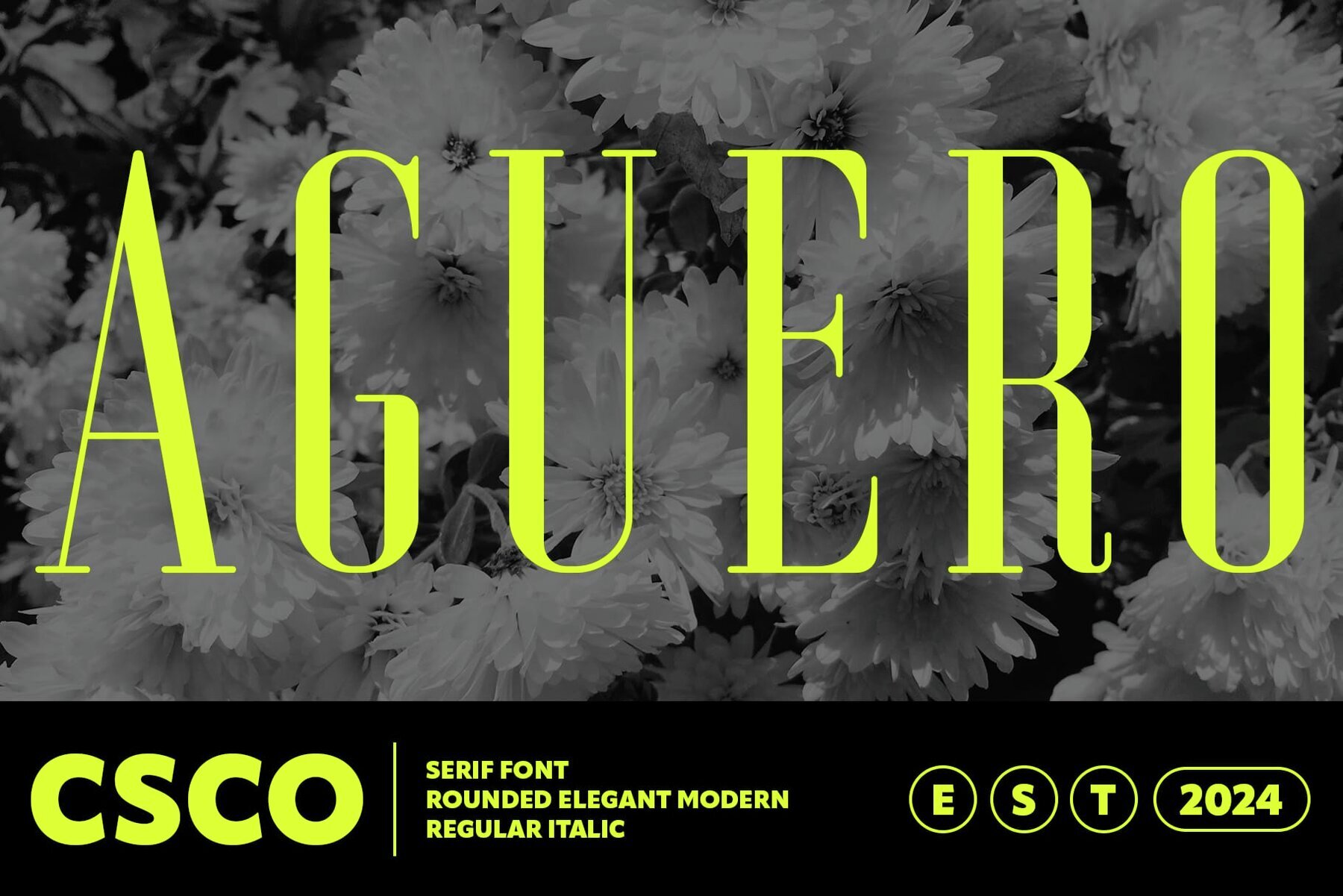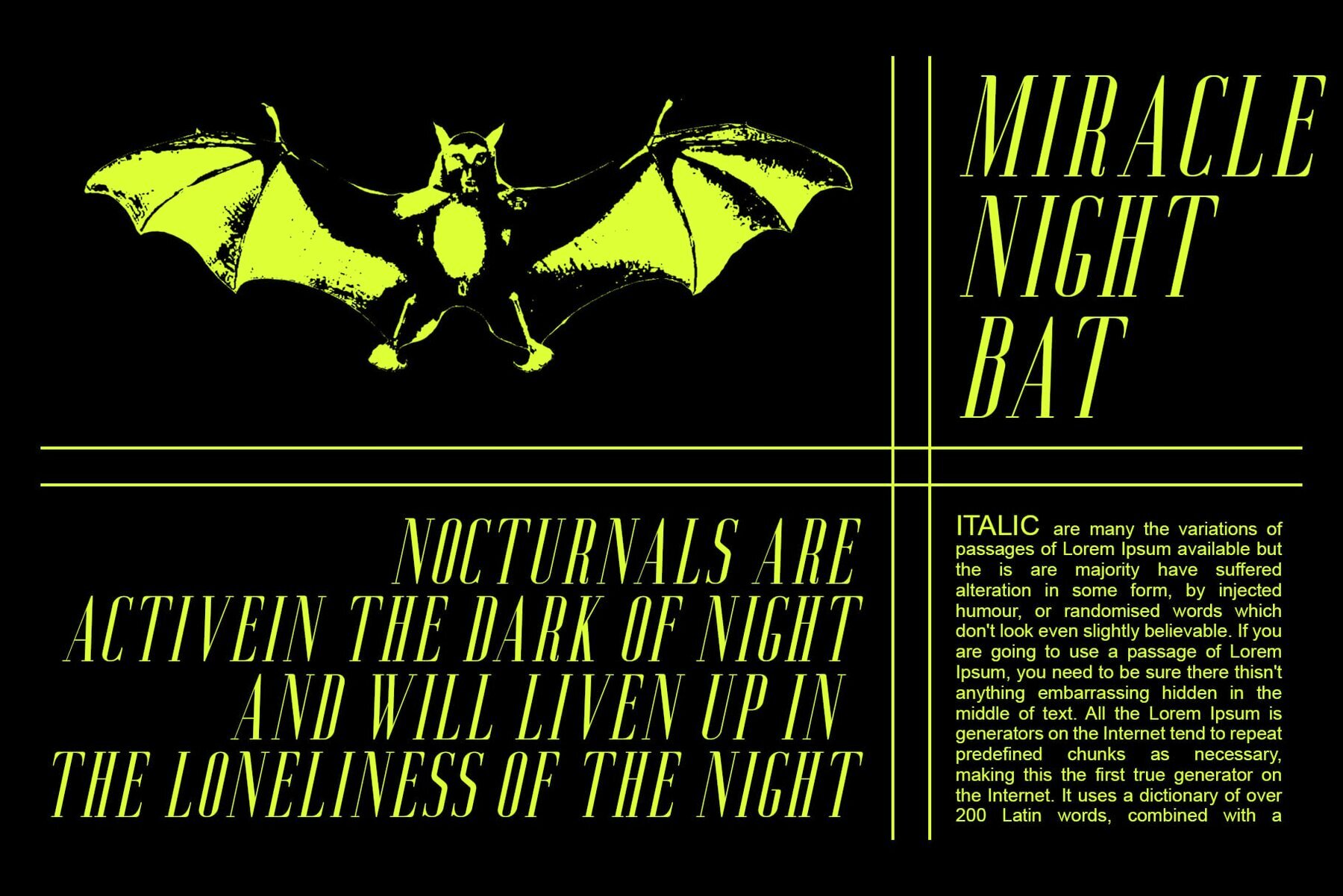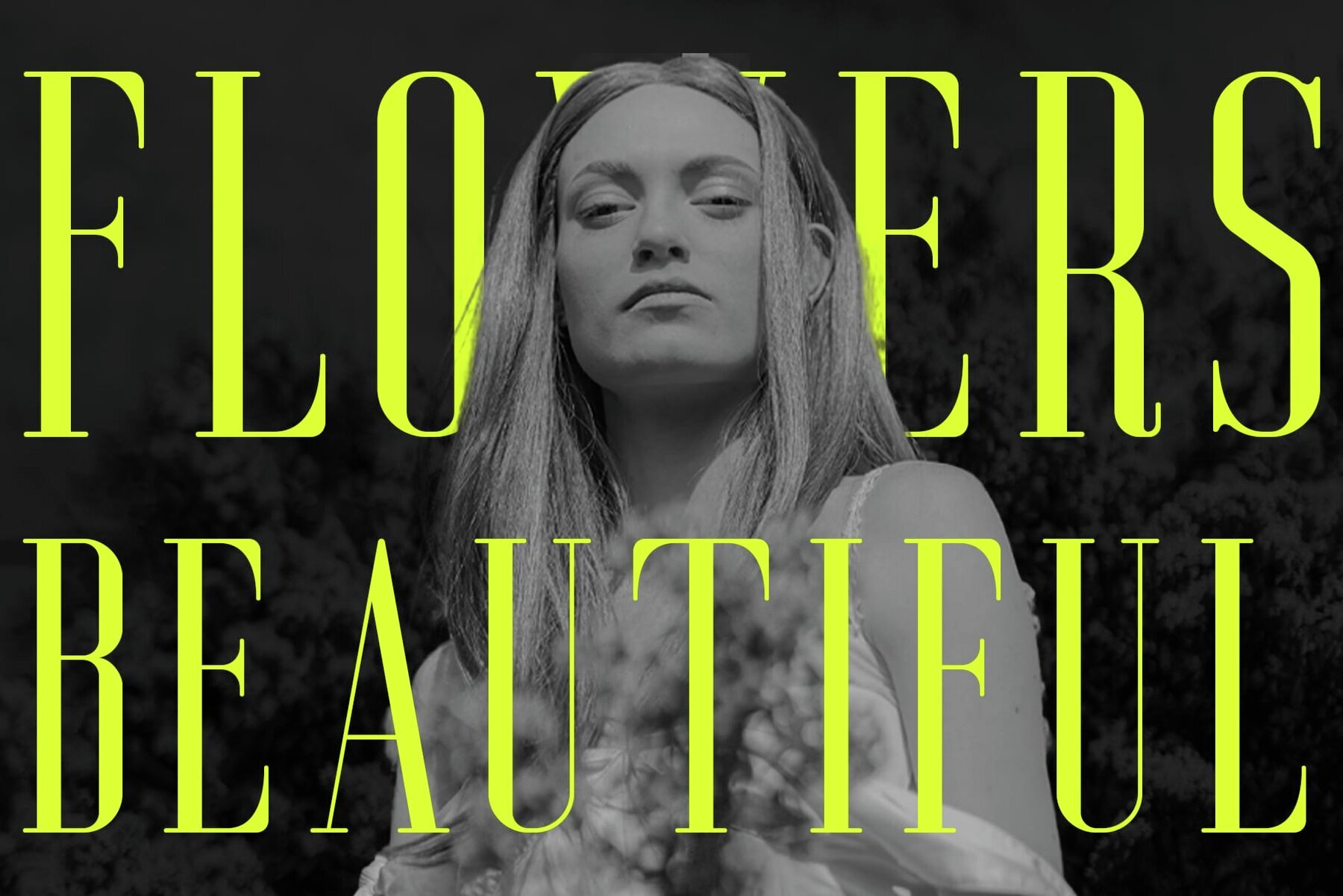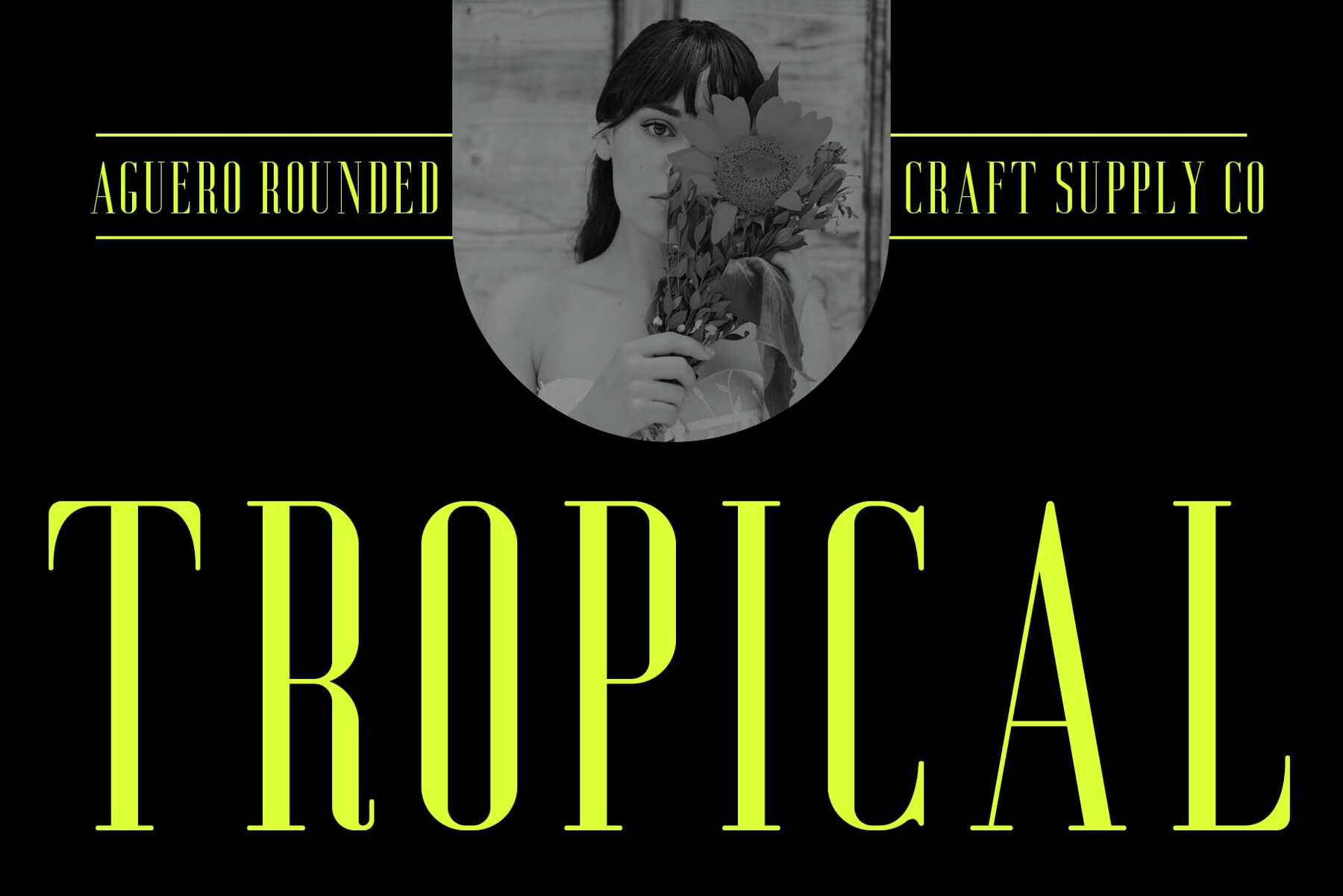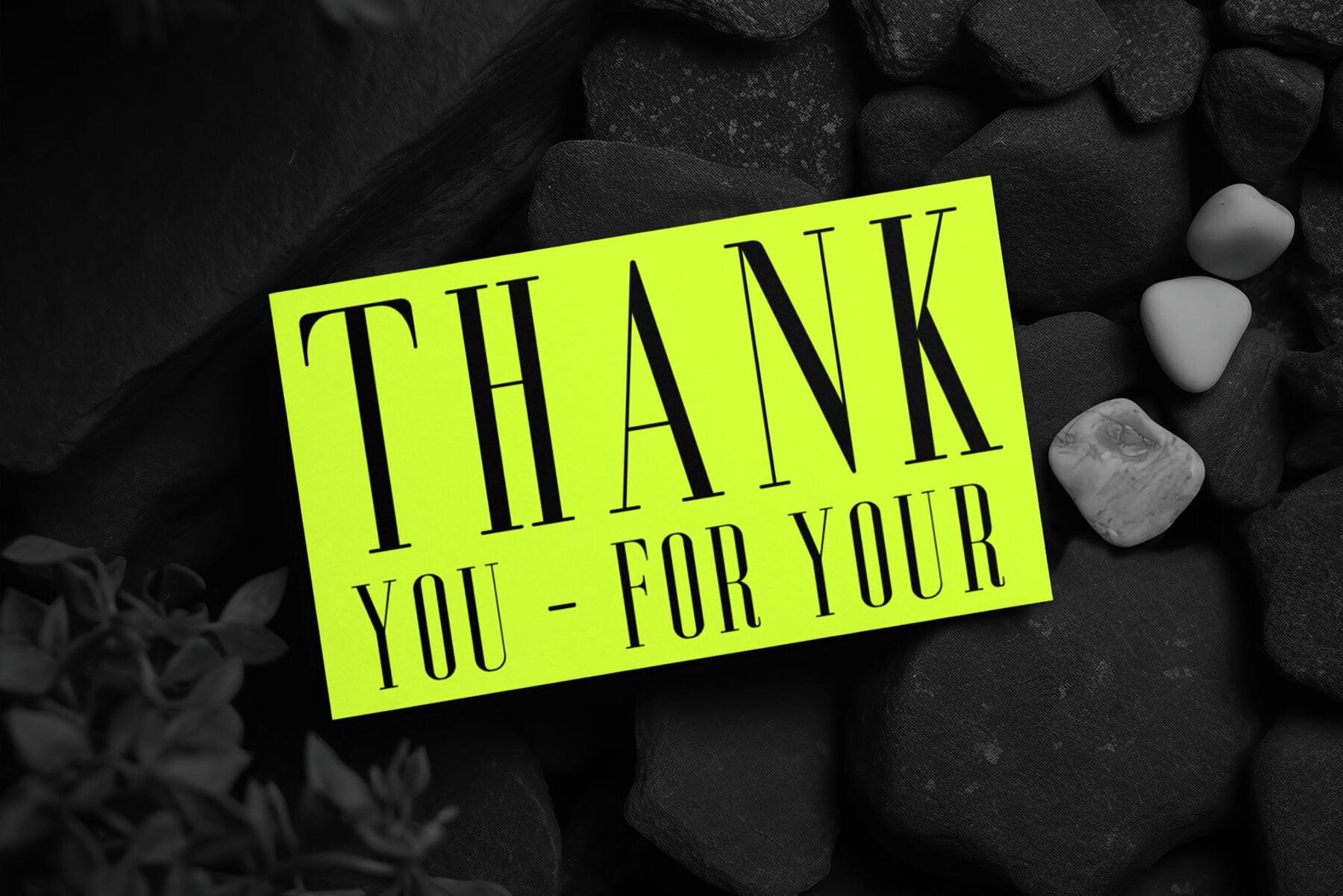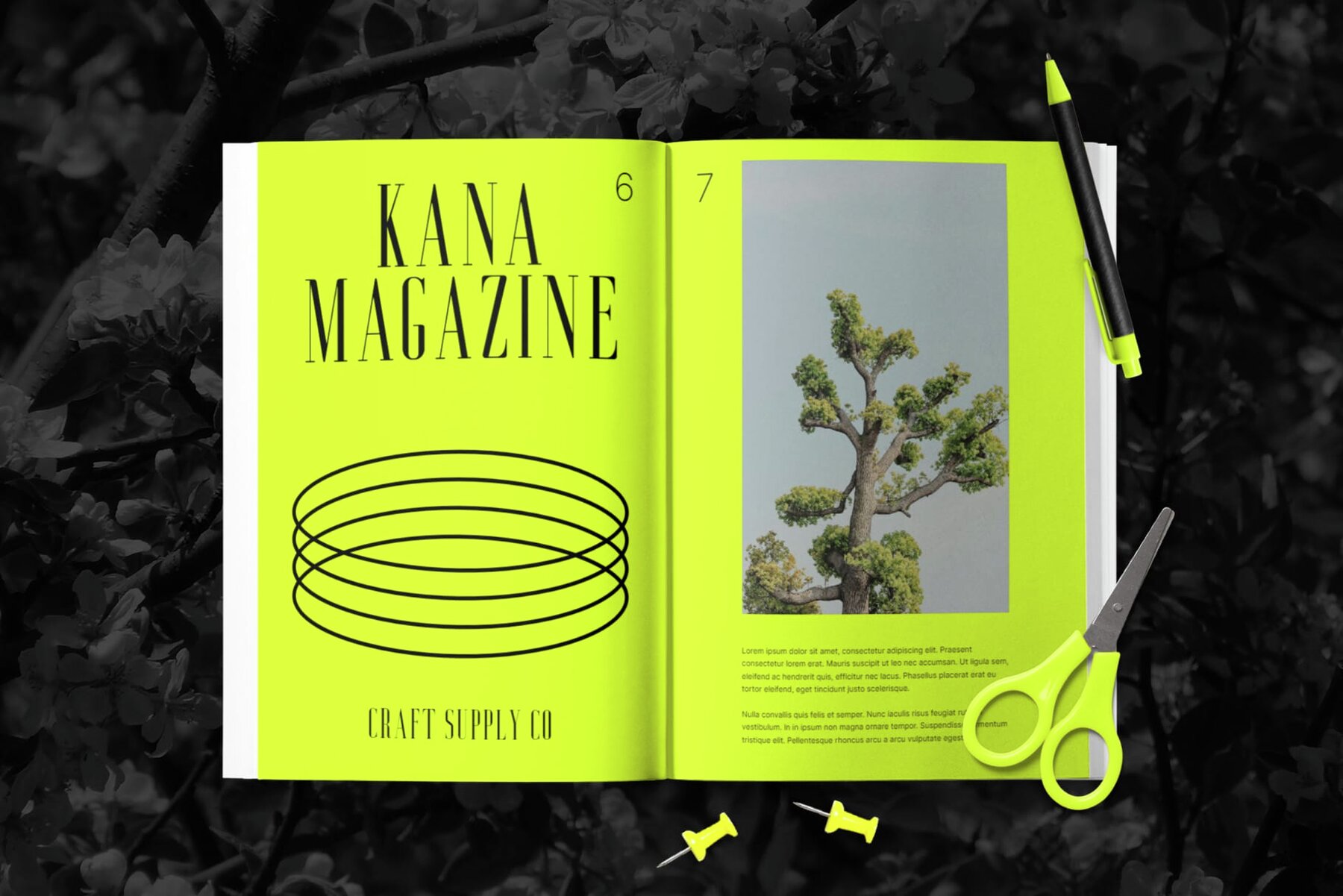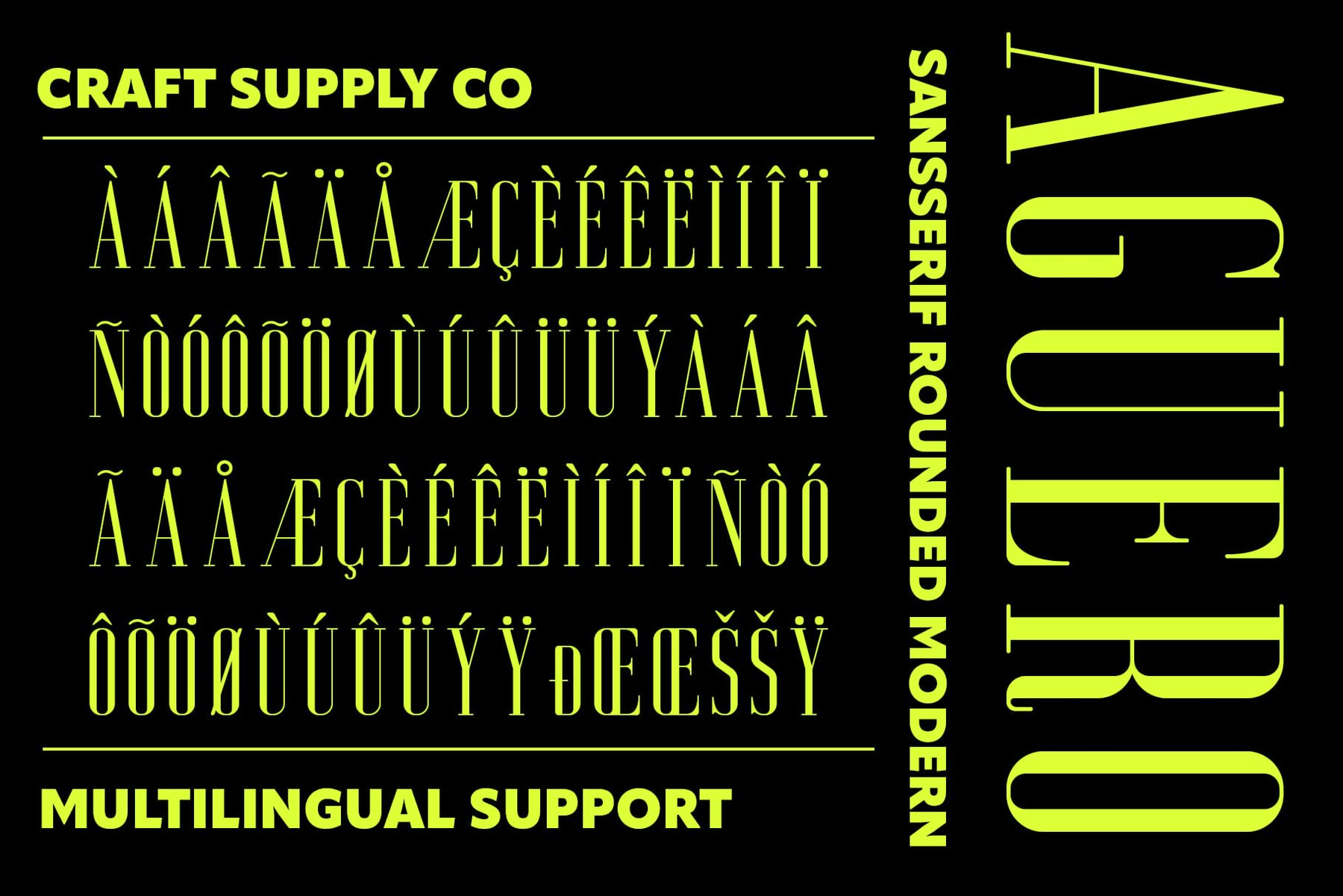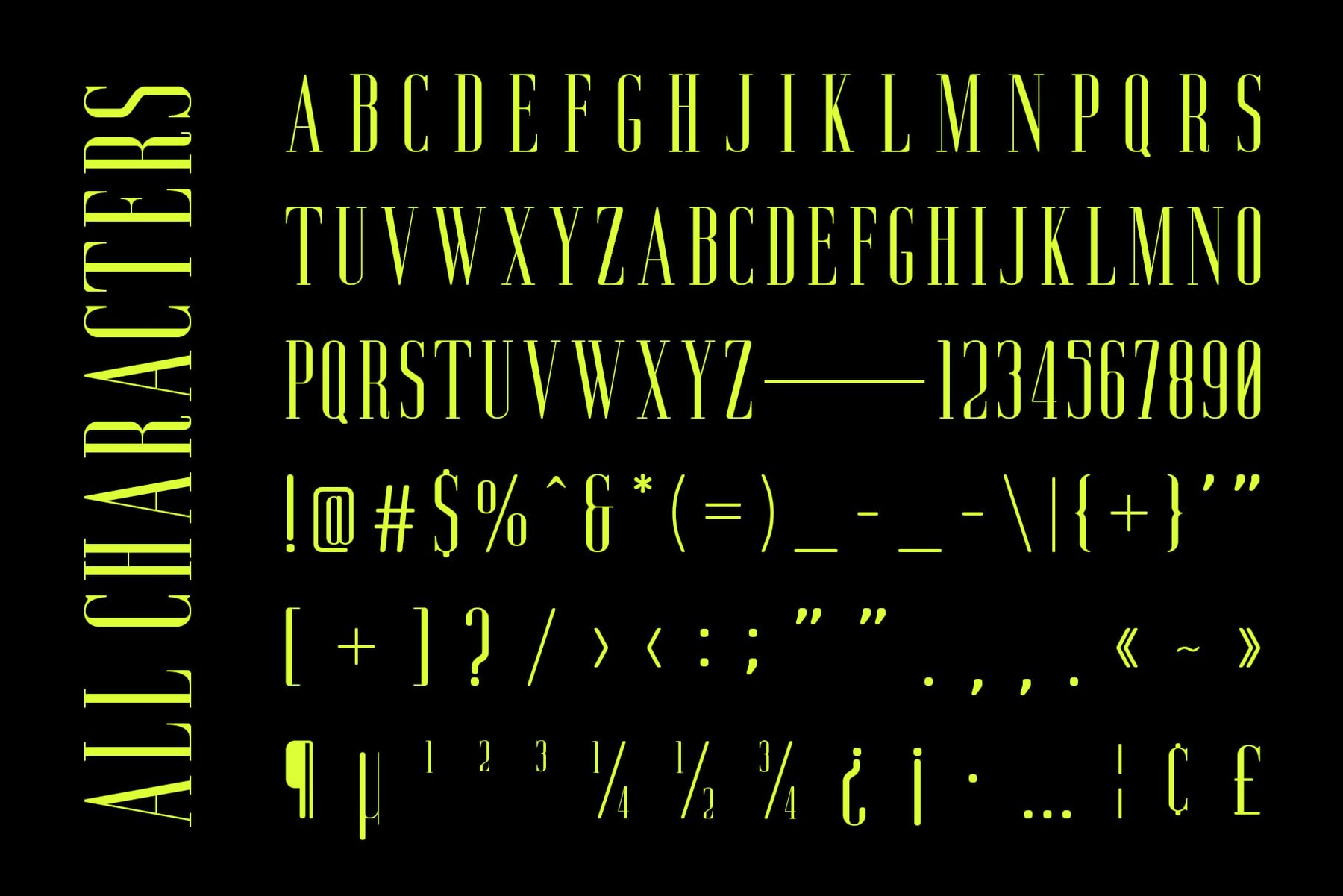
Aguero Serif Rounded Font
This serif decorative font features tall and thin letters, giving it an elegant and stylish appearance. It's perfect for classic and refined design projects, making it ideal for headings, titles, posters, and invitations. The font exudes a sense of luxury, making it a great choice for branding, advertising, fashion, and editorial design, particularly in magazines.